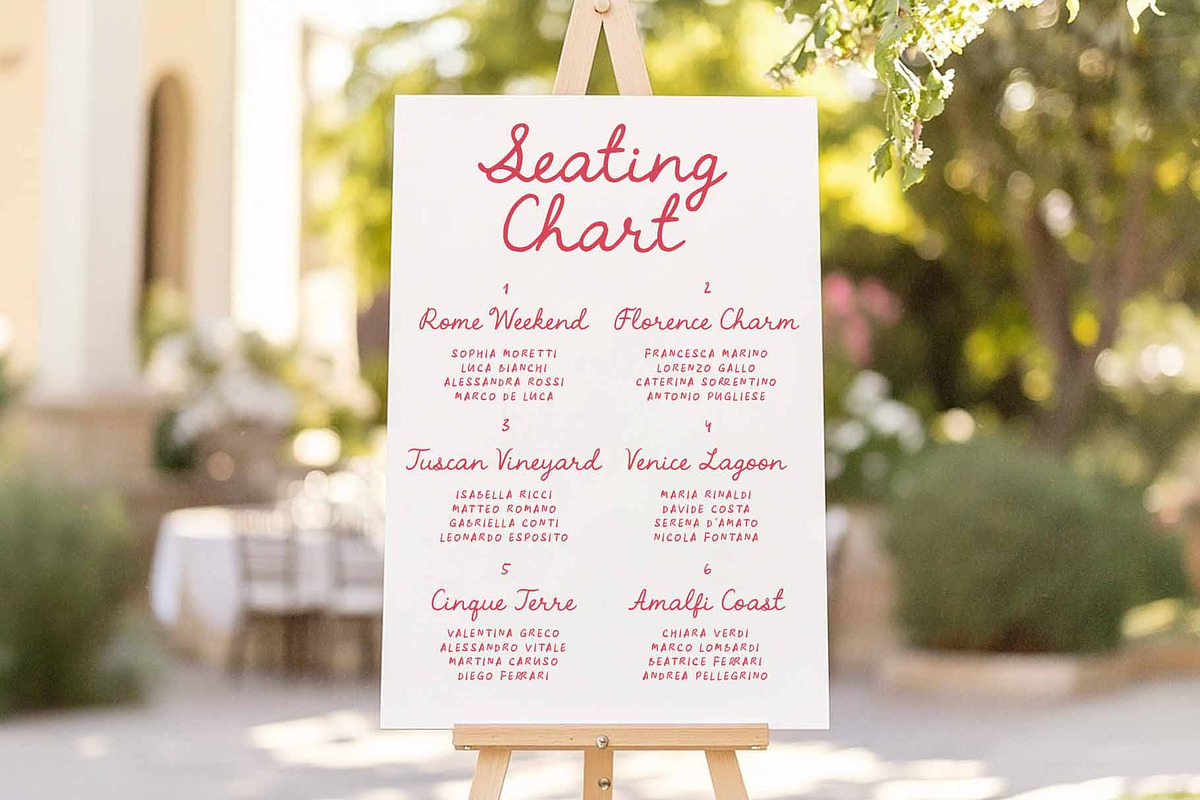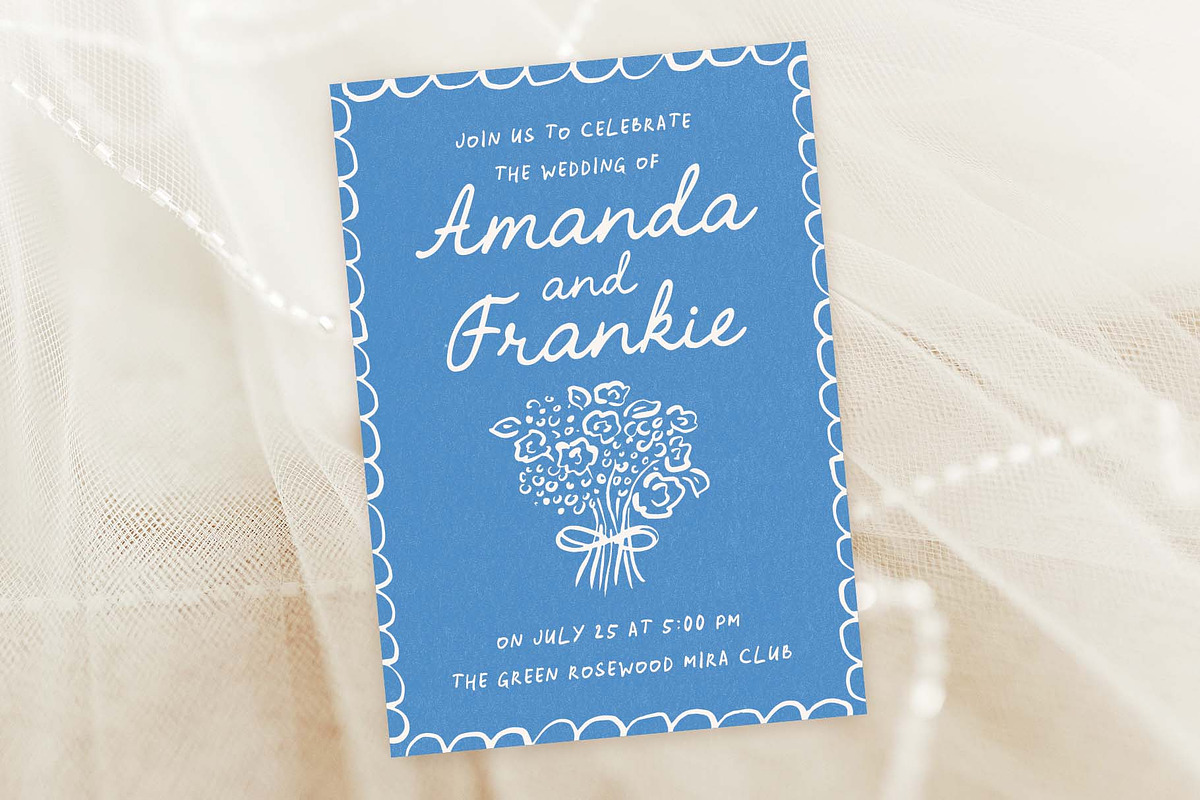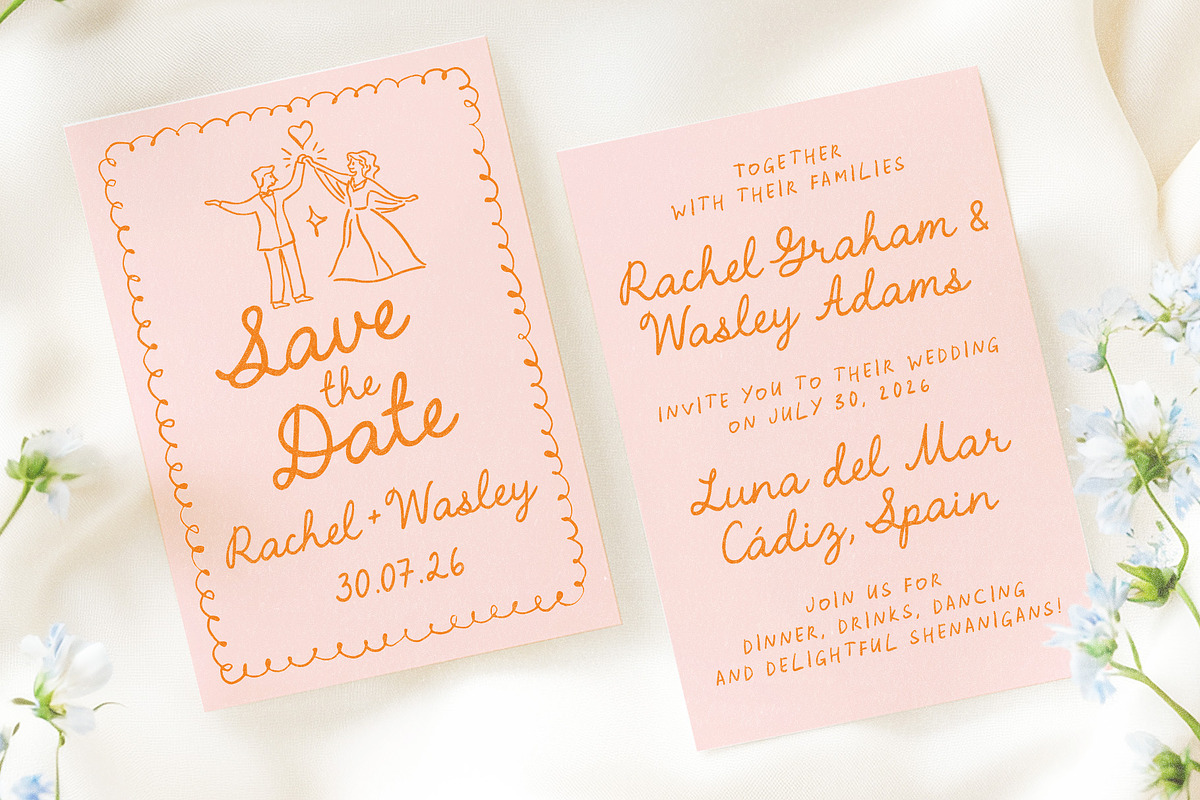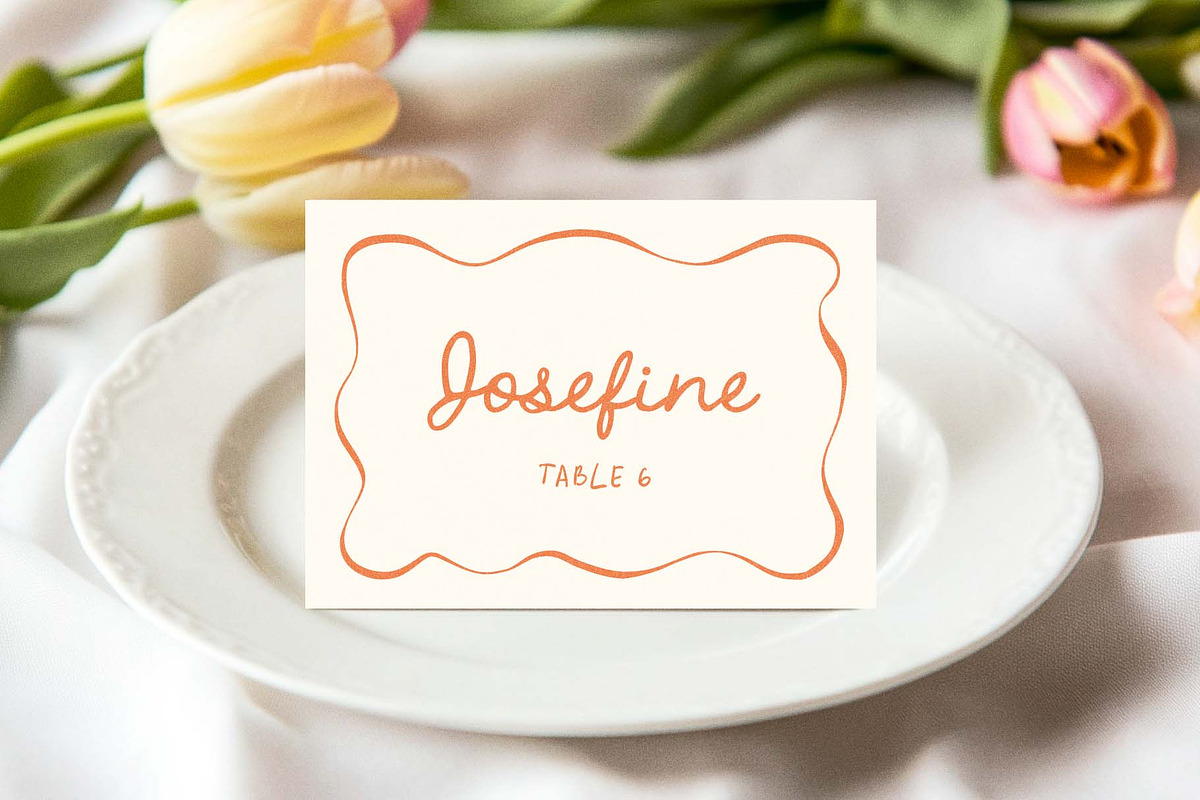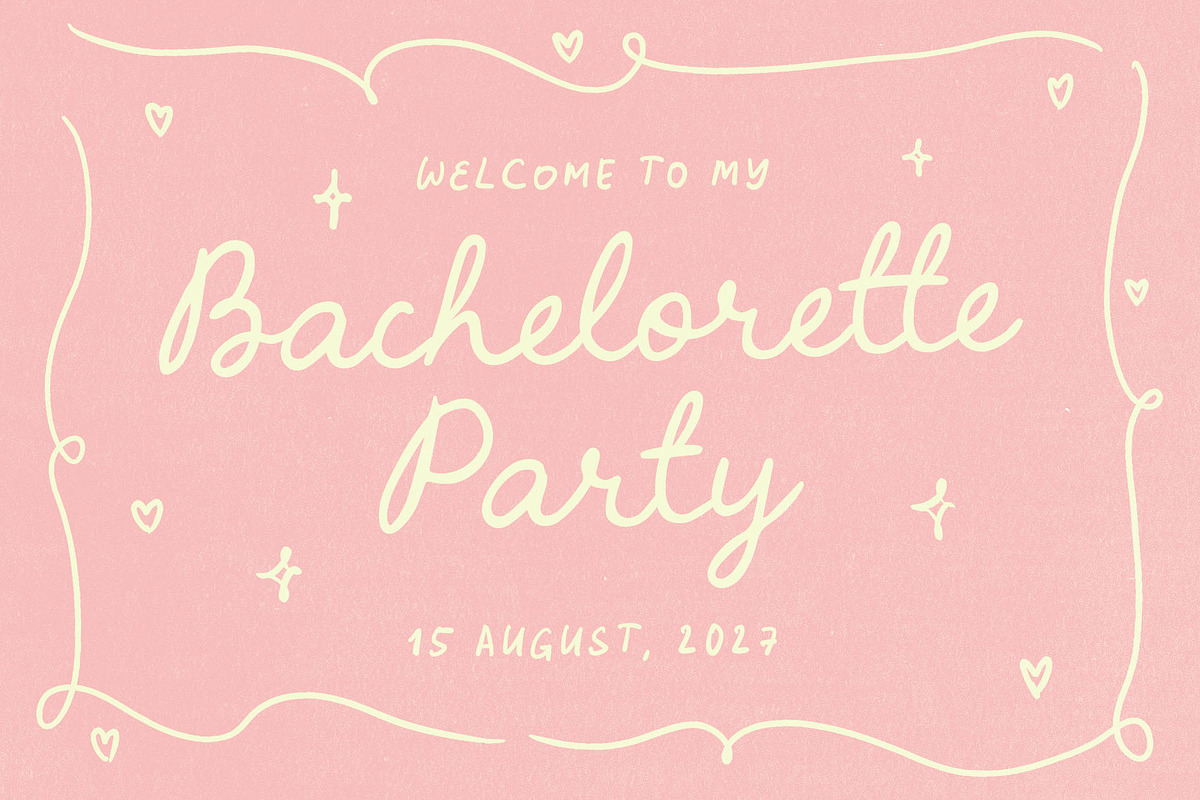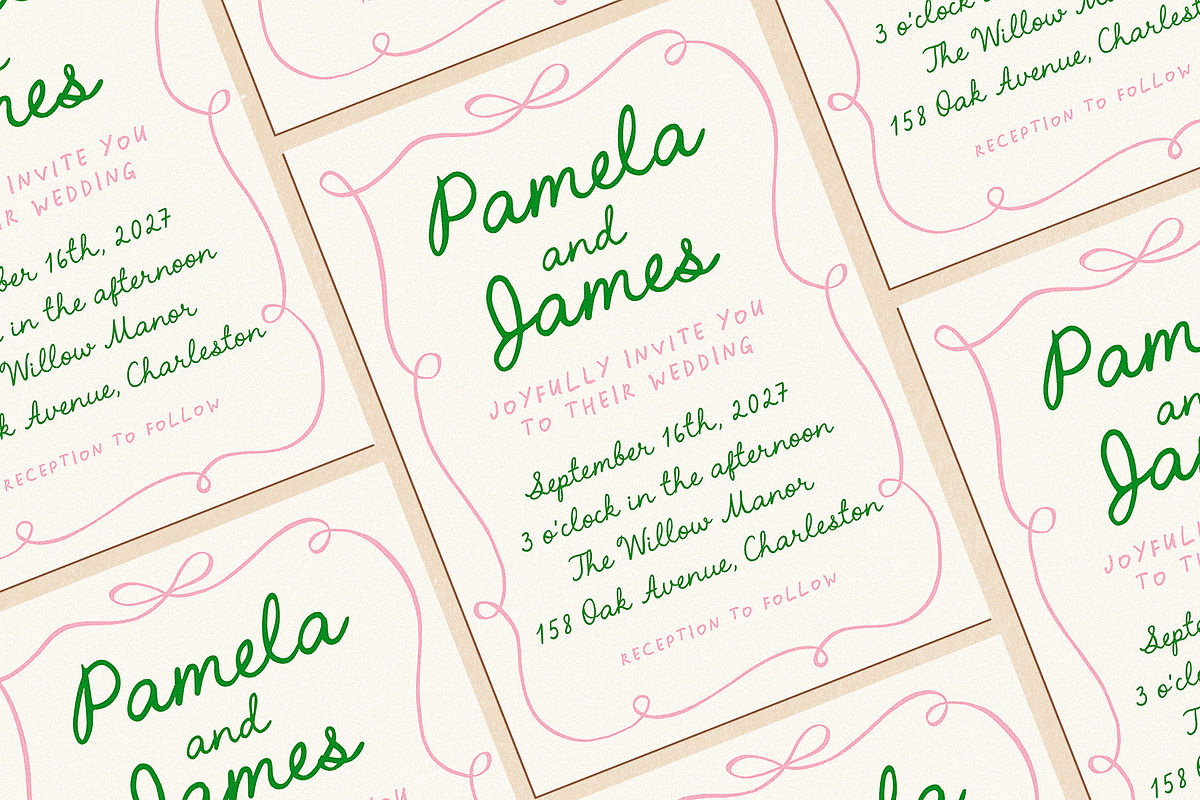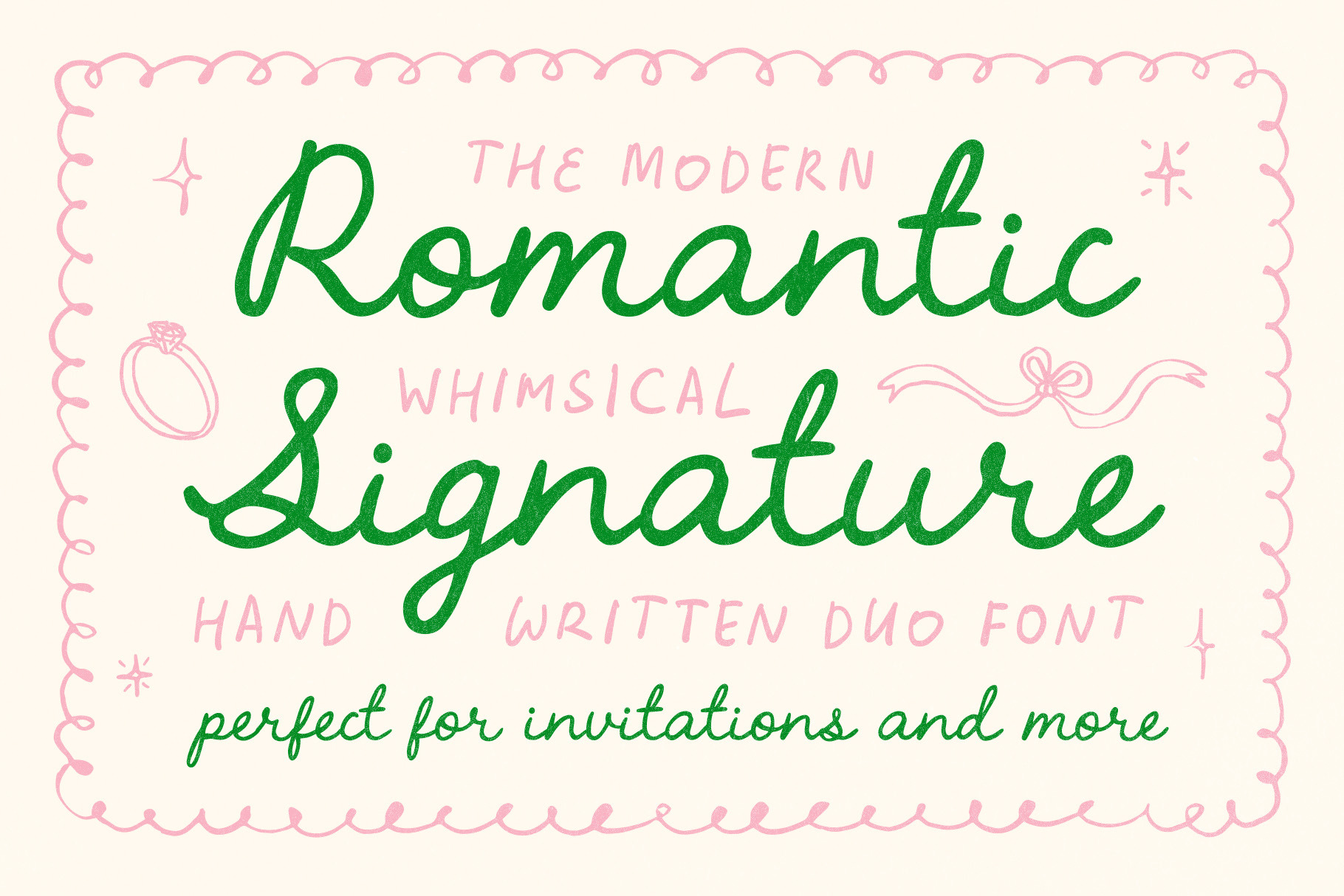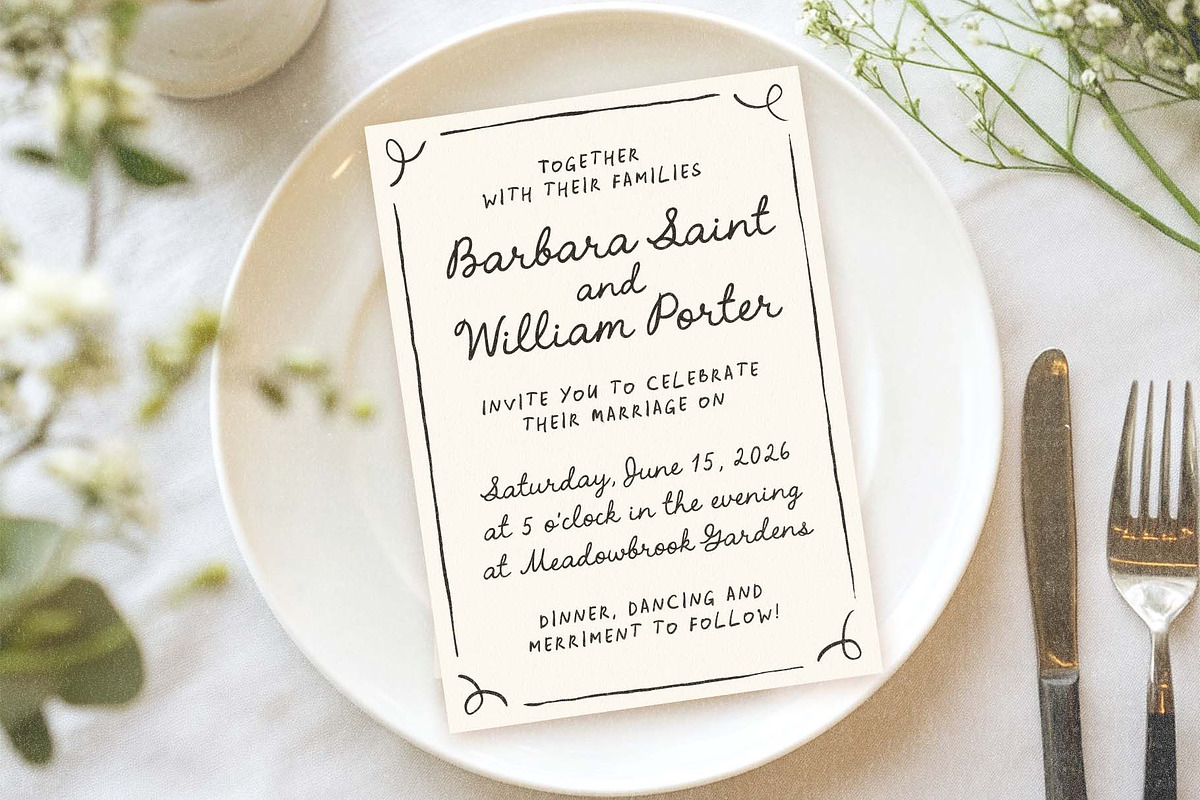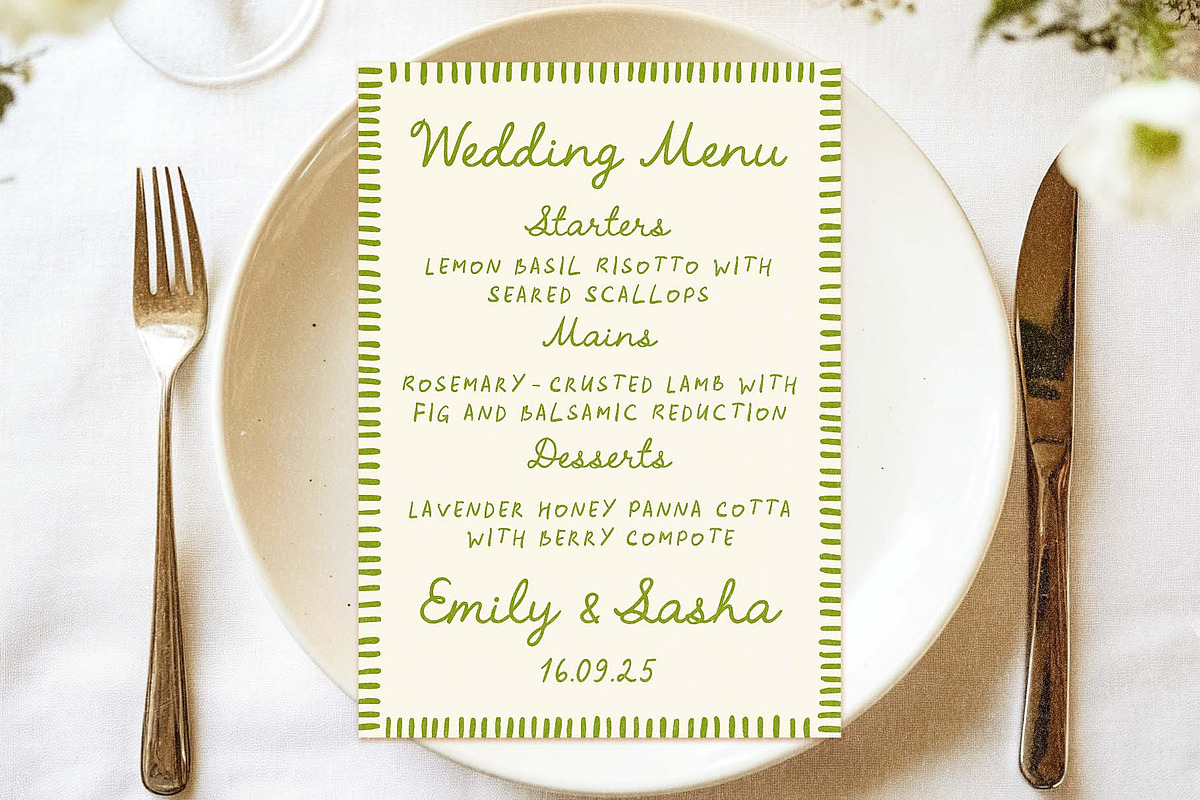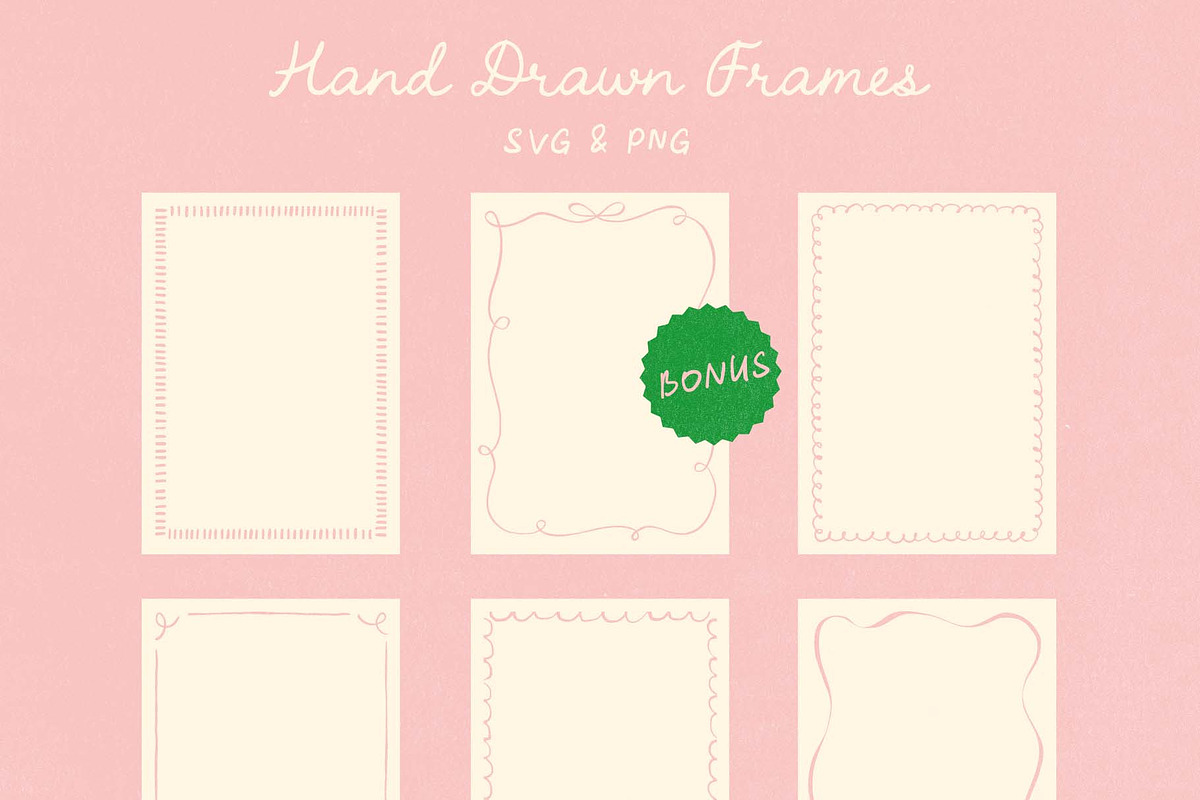
Handwritten Romantic Script Font Duo
Romantic Signature is all about those intimate, handwritten touches that feel warm and personal. With its whimsical flow, it’s perfect for wedding invitations, love notes, or anything where you want that extra bit of charm. This font doesn’t just sit on paper, it adds character, turning menus, save the dates, and cards into something truly memorable.